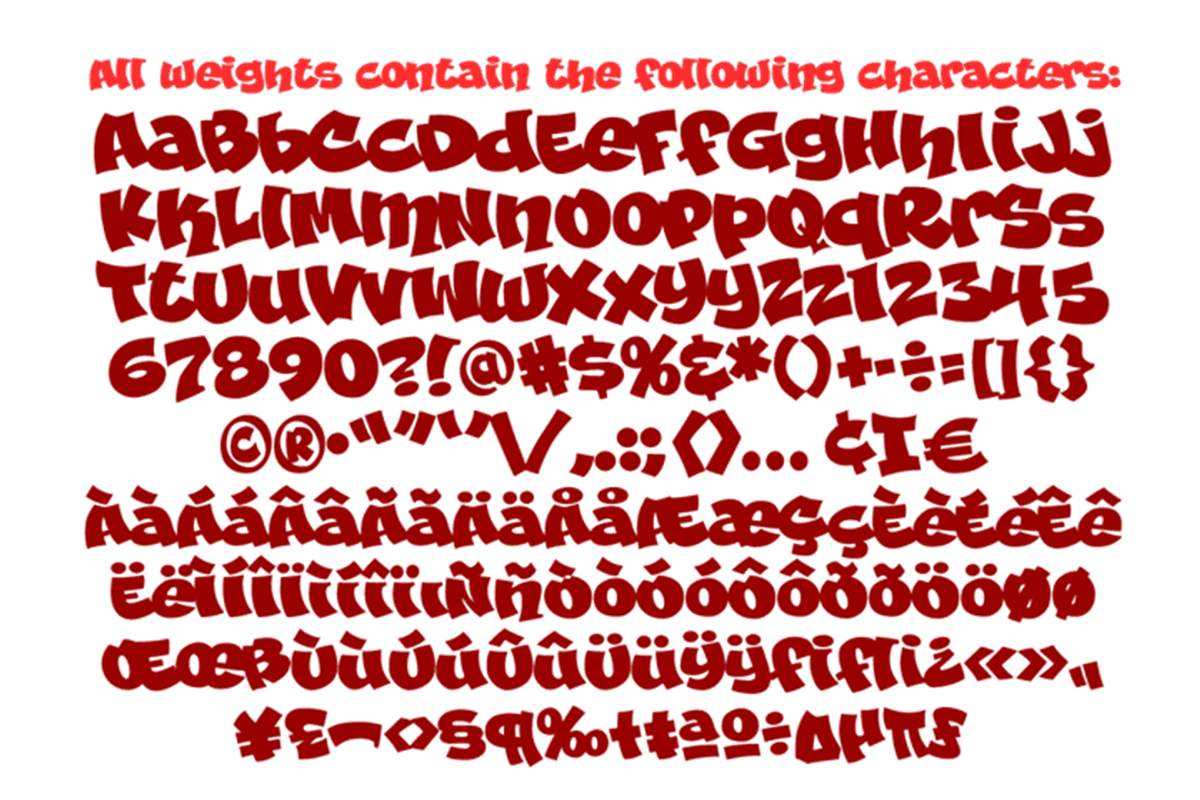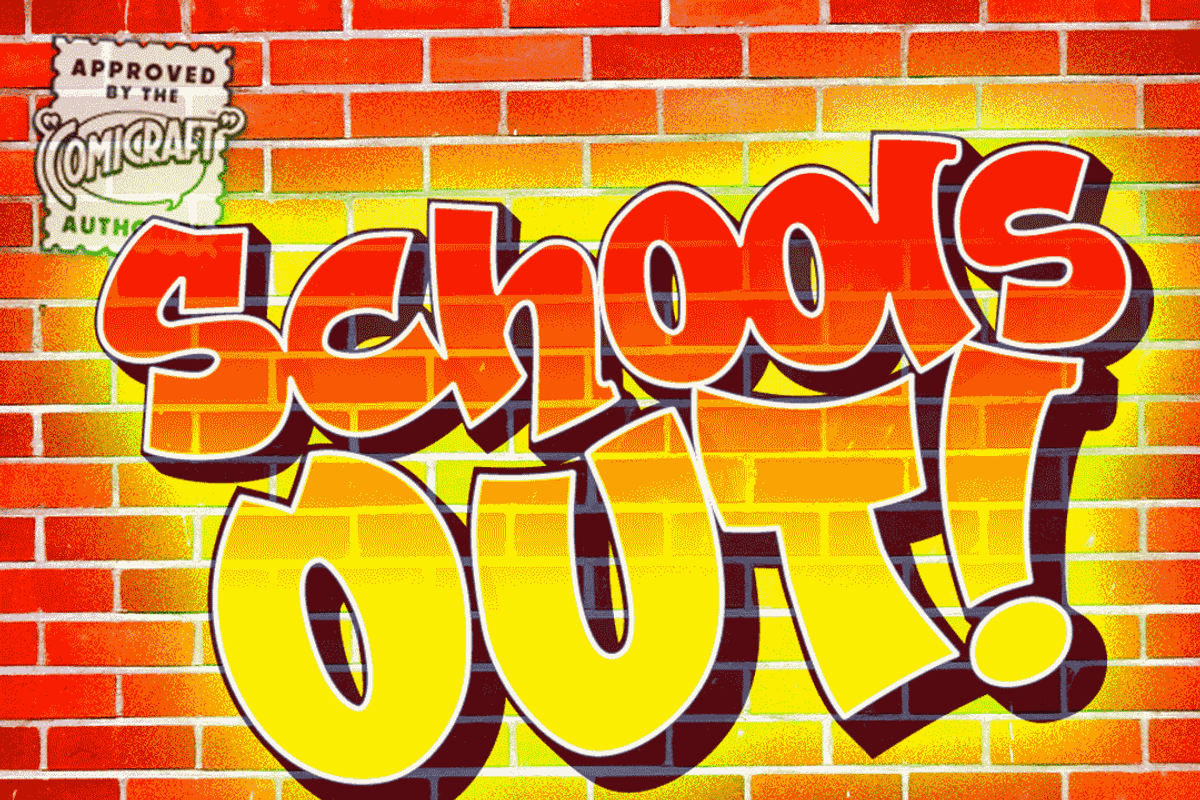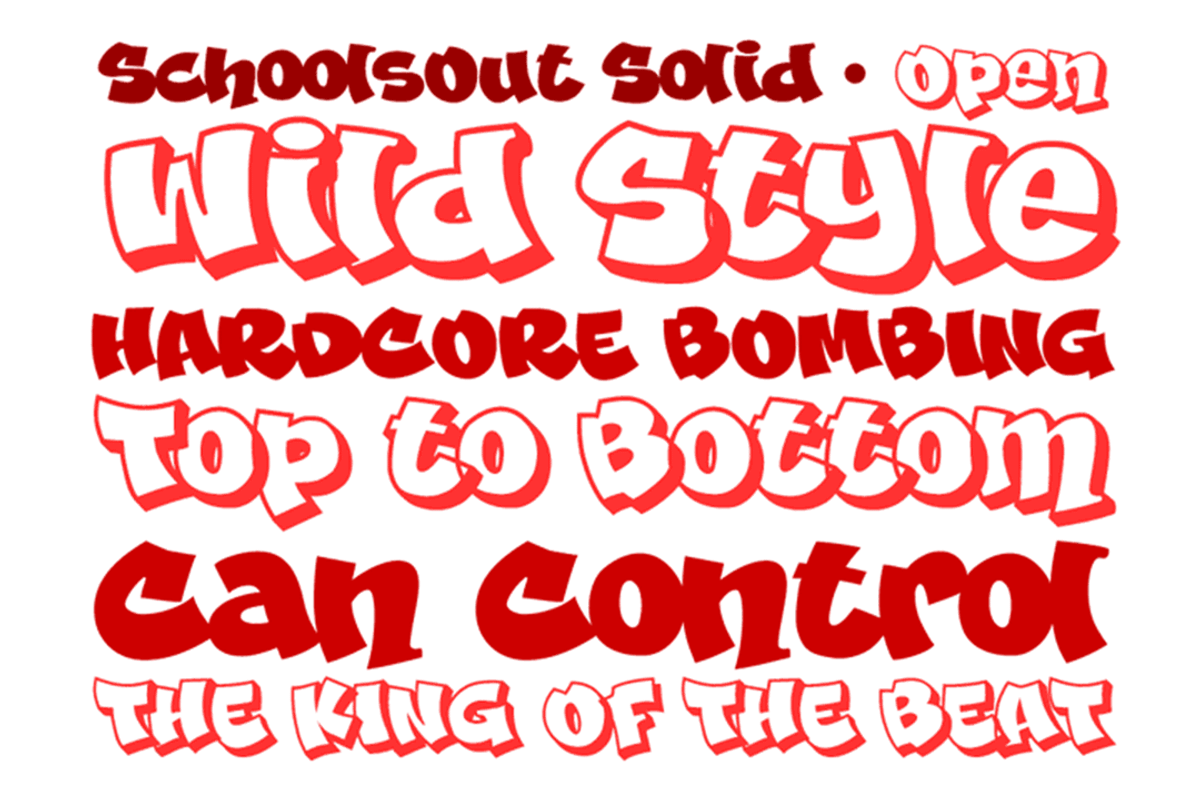
Schools Out - bold graffiti font
Schools Out - bold graffiti font by Comicraft Fonts is a font selected for branding, posters, packaging, typography.
Why Schools Out - bold graffiti font is worth a look
Schools Out - bold graffiti font by Comicraft Fonts fits naturally into Branding, posters, packaging, typography.